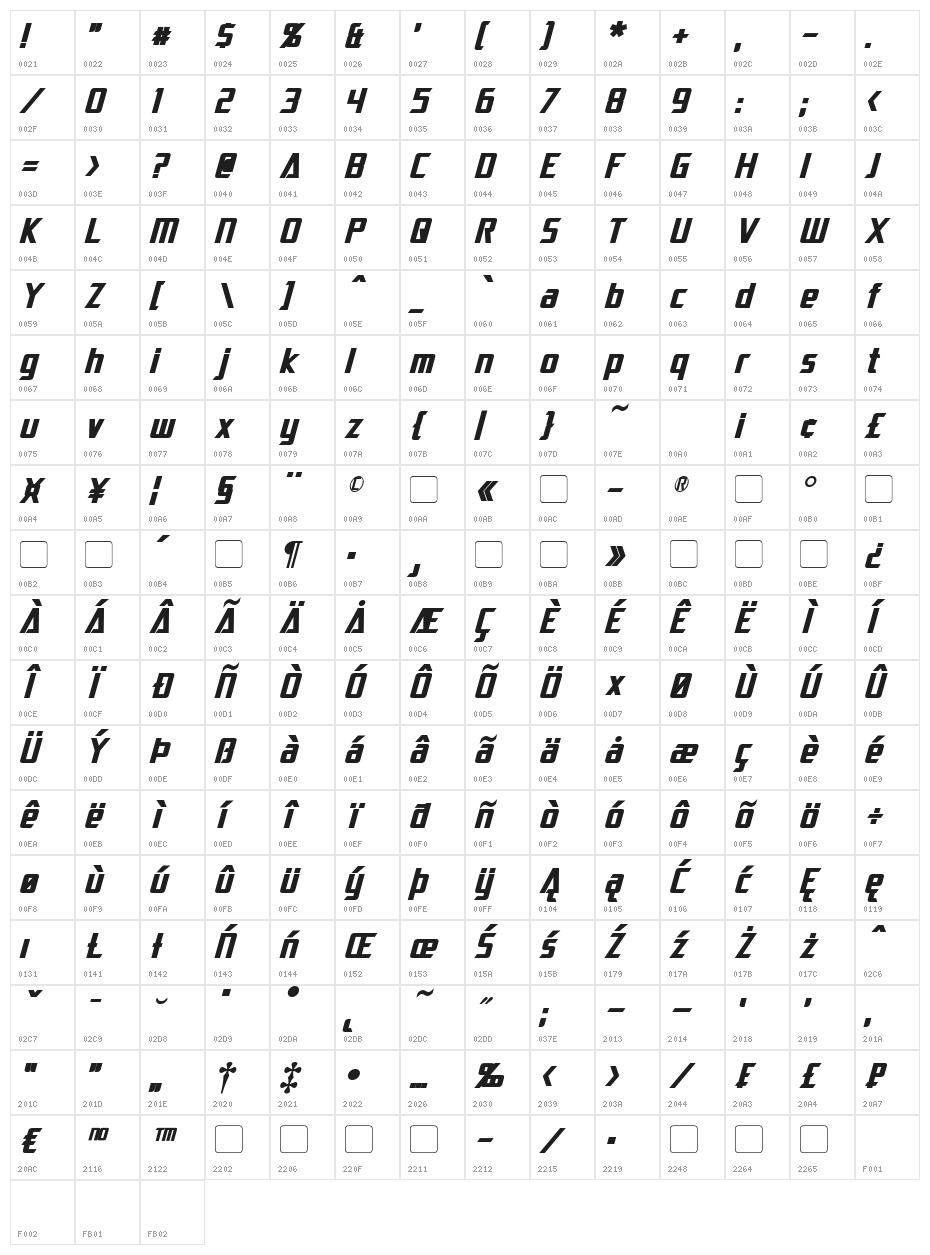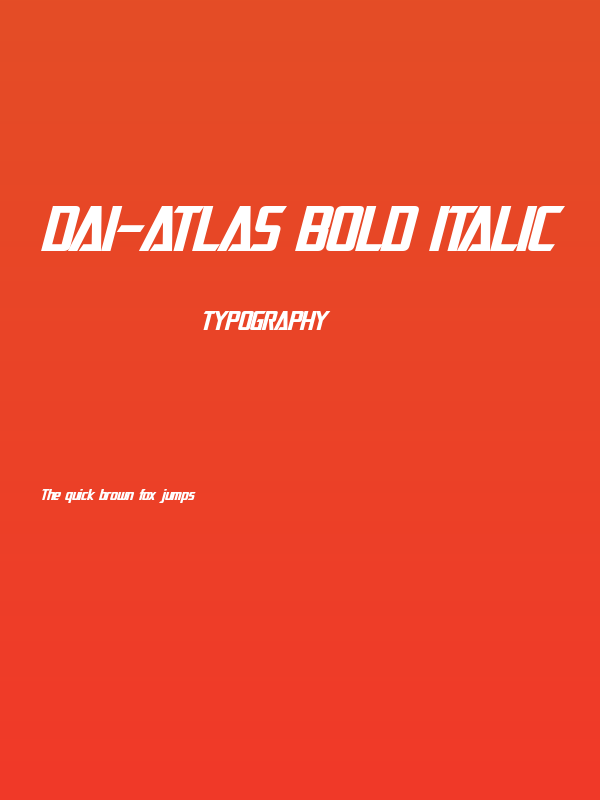
Dai-Atlas Bold Italic Font
Dai-Atlas Bold Italic Description
This font exhibits a bold and italicized style with a modern and dynamic appearance. The characters are sharply angled, giving a sense of movement and speed. The uppercase and lowercase letters maintain a consistent slant, enhancing the italic effect. The numbers and special characters follow the same stylistic cues, ensuring uniformity across all glyphs. The font's bold weight is evident in the thick strokes, which are consistent throughout, providing a strong visual impact. The character spacing is tight, contributing to its compact and cohesive look. This font is well-suited for projects that require a bold and energetic typeface.
| Proposed Projects | Ideal for sports branding, automotive designs, dynamic posters, and modern advertising campaigns. |